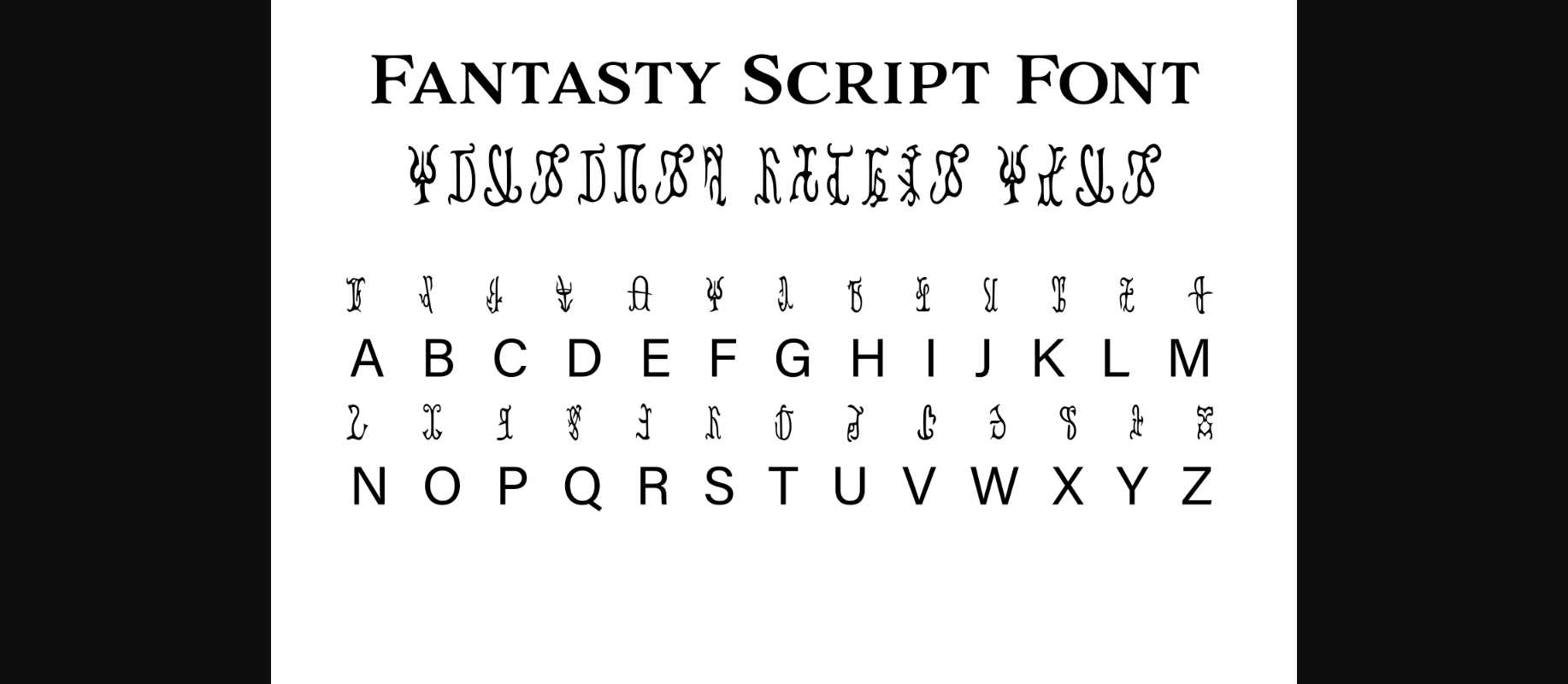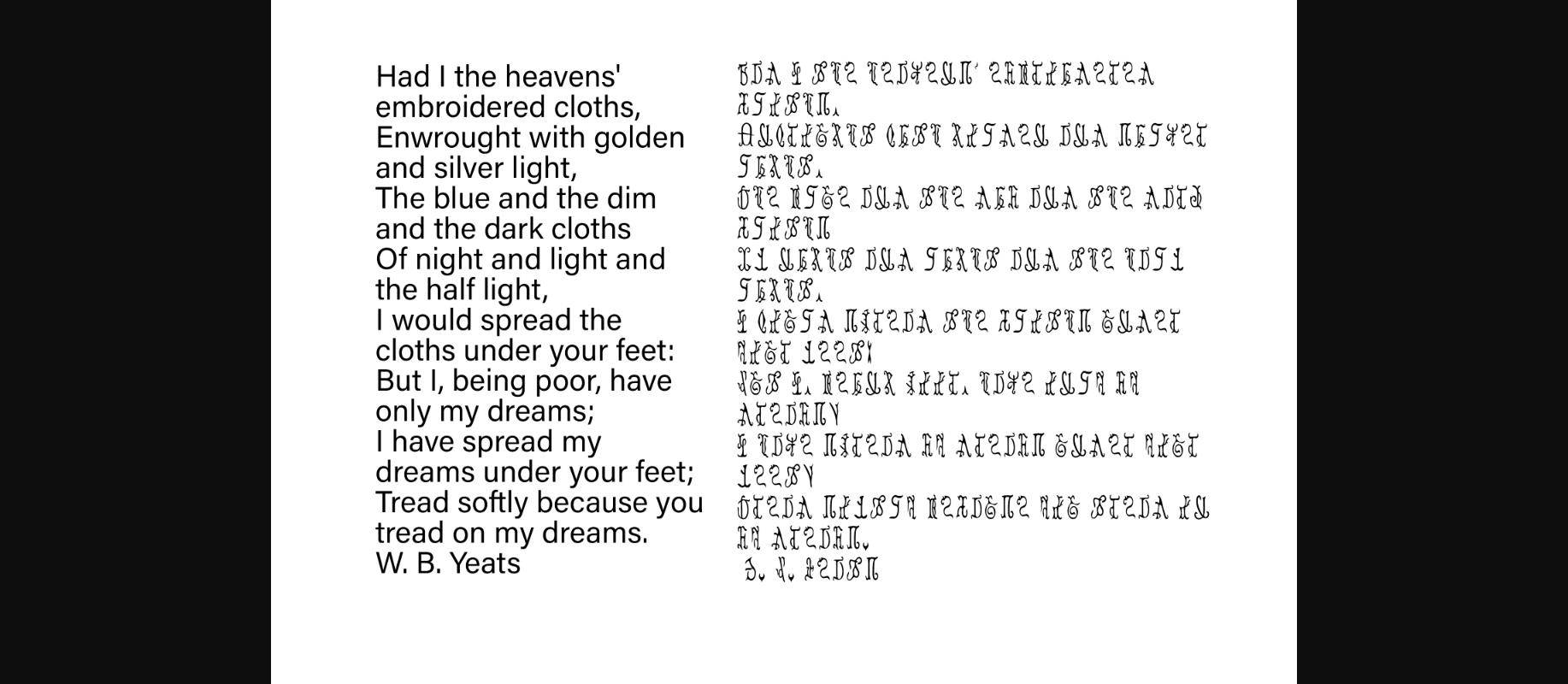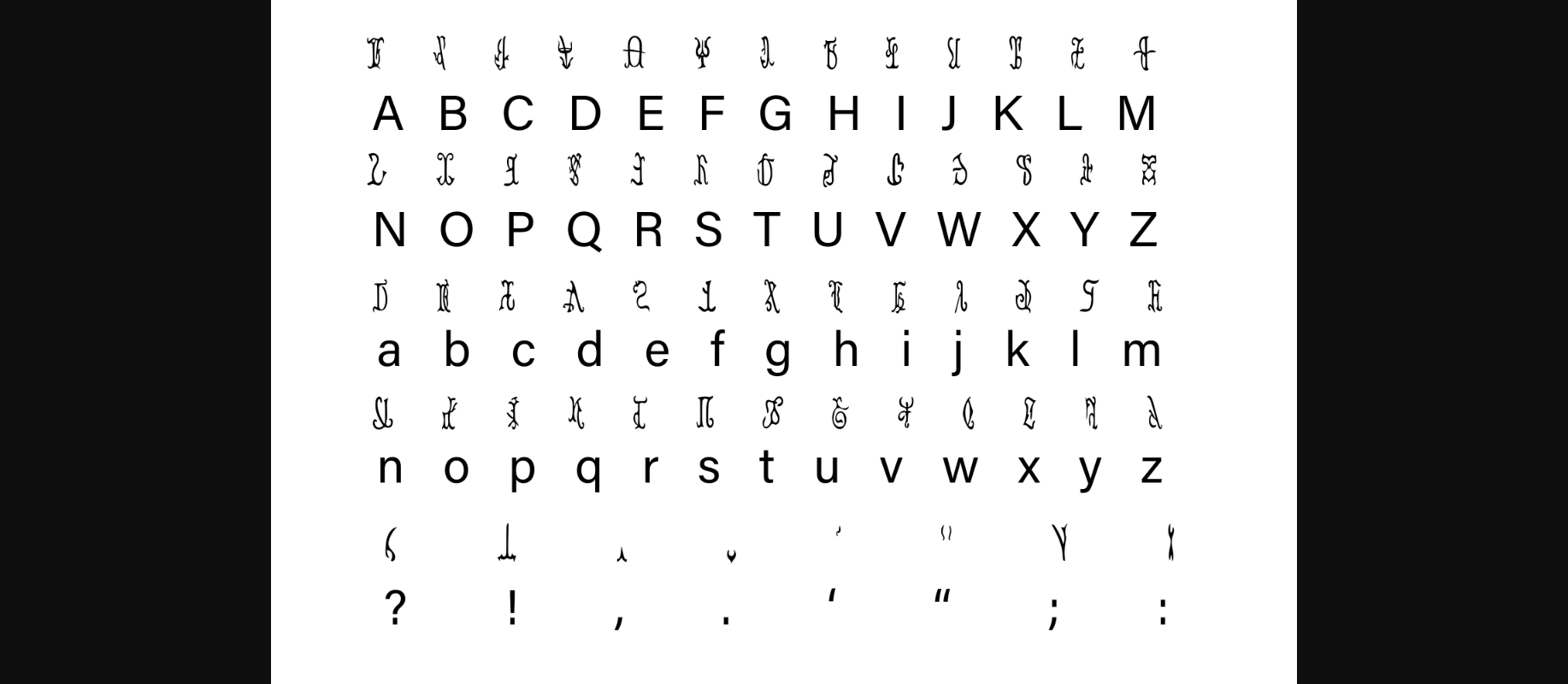
HomeDecorative FontsFantasy Script 15 Font Decorative Fonts Fantasy Script 15 Font FacebookXPinterestWhatsApp 1 of 5 ... Fantasy Script 15 Font Poster 2... Fantasy Script 15 Font Poster 3... Fantasy Script 15 Font Poster 4... Fantasy Script 15 Font Poster 5... About Fantasy Script 15 Font Fantasy is perfect for your next Dungeons and Dragons campaign, fantasy LARP adventure, novel, or whatever else you’re working on! This font includes the standard English alphabet and basic punctuation. DOWNLOAD NOW People also explored Adventure Dreamer Family Font Pinkylate Font Baselina Daylight Font Rejuvenation Font Santa Gnome Font Friday Vibes Font Nightday Fondamento Pro 384 0 TagsFantasy Script 15 Font Previous articleFantasy Script 14 FontNext articlePine Decorative Font LEAVE A REPLY Cancel reply Comment: Please enter your comment! Name:* Please enter your name here Email:* You have entered an incorrect email address! Please enter your email address here Website: Save my name, email, and website in this browser for the next time I comment. Personal Use Free Williana Personal Use Free Read more about this font Lovetle Personal Use Free Read more about this font Martani Personal Use Free Read more about this font Cheese Matcha Font Personal Use Free Read more about this font BLOG Fonts That Capture the Spirit of New York City New York City is more than just a place—it’s an experience, a rhythm, a visual language... Transform Your Website: Elevate Your Typography with 7 Best Web Font Generators Best Fonts for T-Shirt Design – Top 2025 Picks The 10 Best Handwriting Fonts to Add Personality to Your Designs